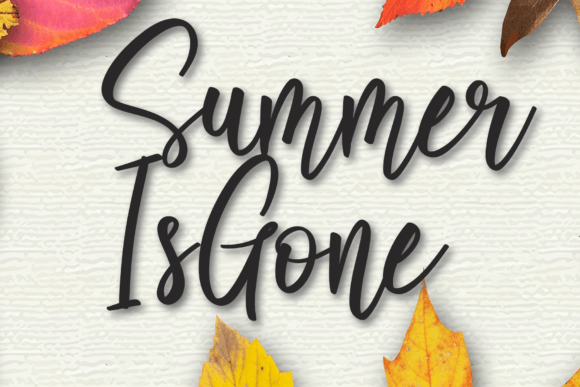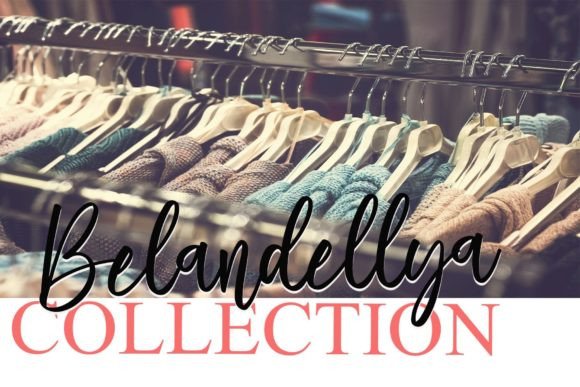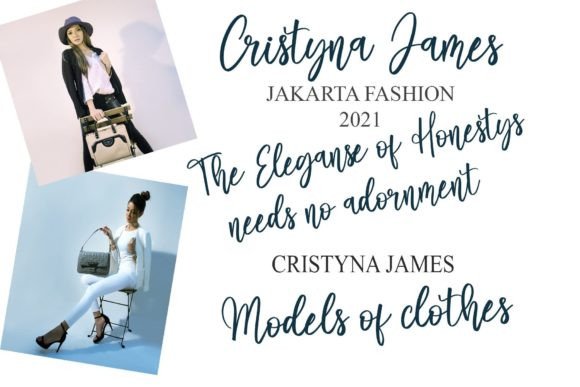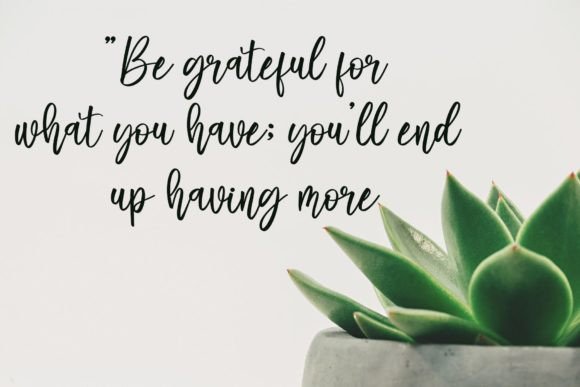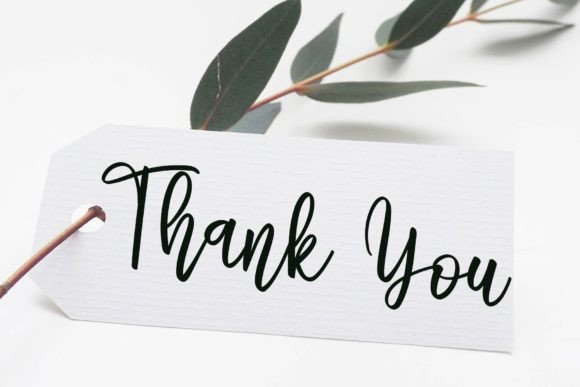
Summer is Gone Font
About Summer is Gone Font
“Summer Is Gone” is a unique round-lettered handwritten font, meticulously crafted for use on titles, invitations, letters, and a variety of other creative products. With its distinctive design, this font adds a special touch to your text, making it a versatile and engaging choice for a range of design projects.
The round-lettered style of Summer Is Gone imparts a unique and nostalgic aesthetic to your text, offering a playful yet reflective vibe. Whether you’re creating attention-grabbing titles, personalized invitations, or heartfelt letters, this font is designed to enhance the visual appeal of your content with a touch of sentiment.
By incorporating Summer Is Gone into your creative projects, you can expect amazing and visually pleasing results. The careful craftsmanship behind this font ensures that it delivers the intended aesthetic, making it a reliable choice for achieving the desired impact in your design work.
In summary, Summer Is Gone is more than just a font; it’s a carefully crafted tool that brings a unique and handwritten charm to your creative projects. Whether you’re working on titles, invitations, or other types of content, let Summer Is Gone be the round-lettered font that adds character and personality to your designs, leaving you amazed at the fantastic results.